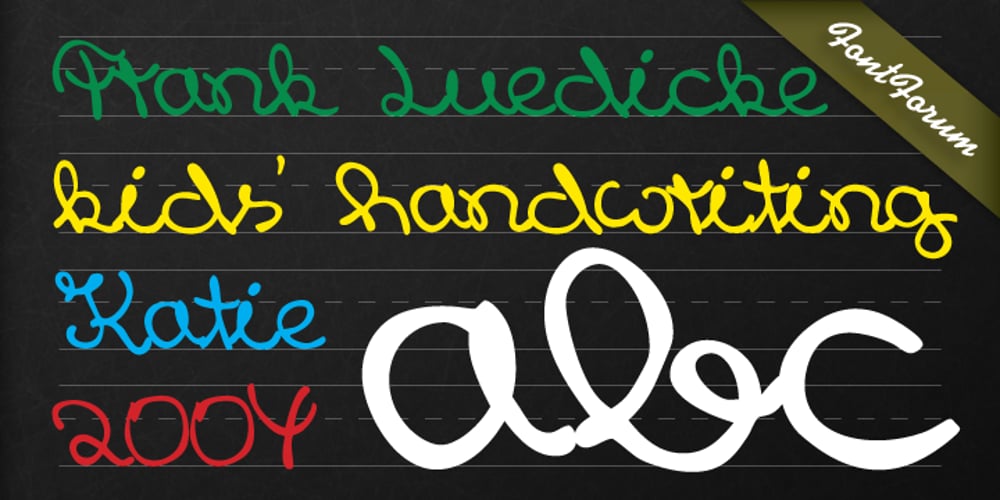
Katie Font Family was designed by Frank K. Lüdicke and published by URW Type Foundry. Katie contains 2 styles and family package options. Katie is a design of Frank L�dicke for the FontForum. Katie is a left-italic handwriting font with lots of charm and style you only get with kids? handwriting. Indeed, Frank L�dicke digitized his daughter?s handwriting for professional use. Based on the regular style, he added a bold weight and completed the character set to cover Latin West, and East, including Turkish and Romanian.